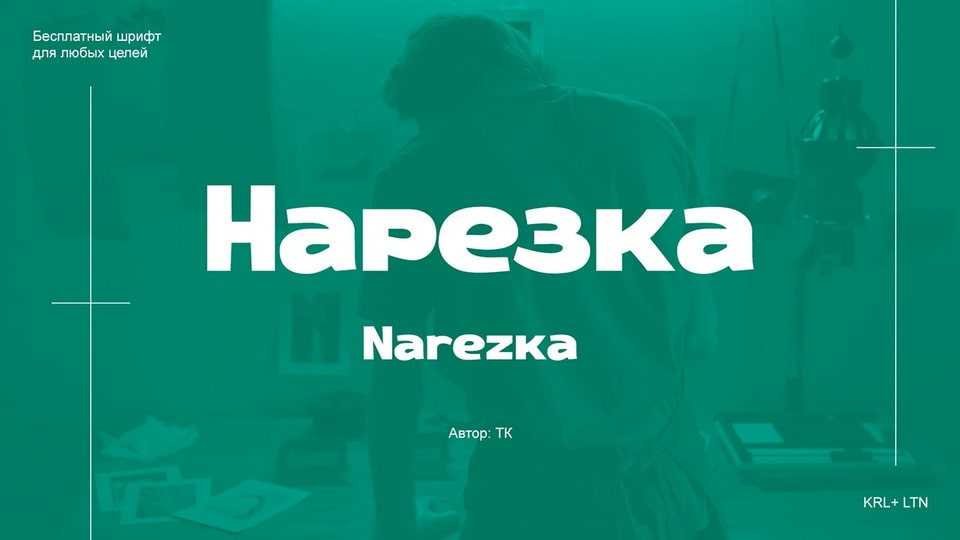
Download Narezka font, a contemporary sans-serif typeface with a confident, practical character. Its smooth geometry, generous proportions, and soft curves create a friendly yet professional tone.
Designer: Tim Kasimoff